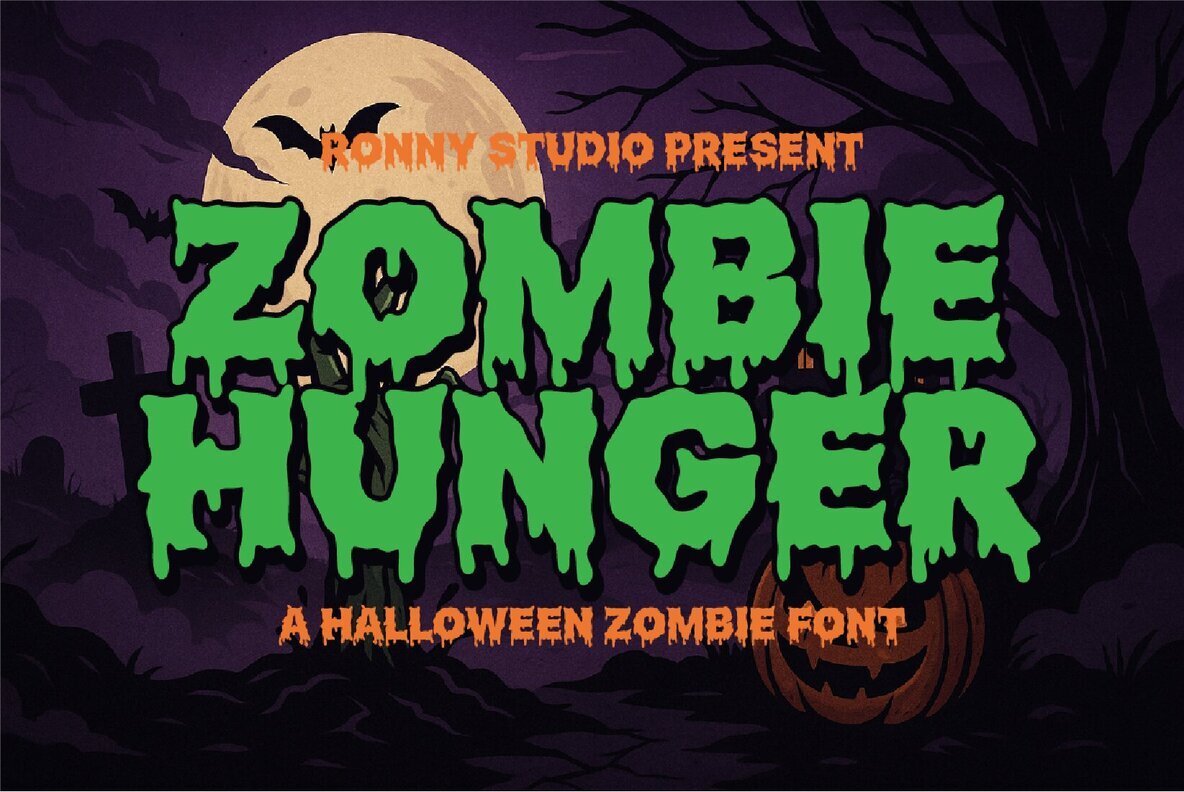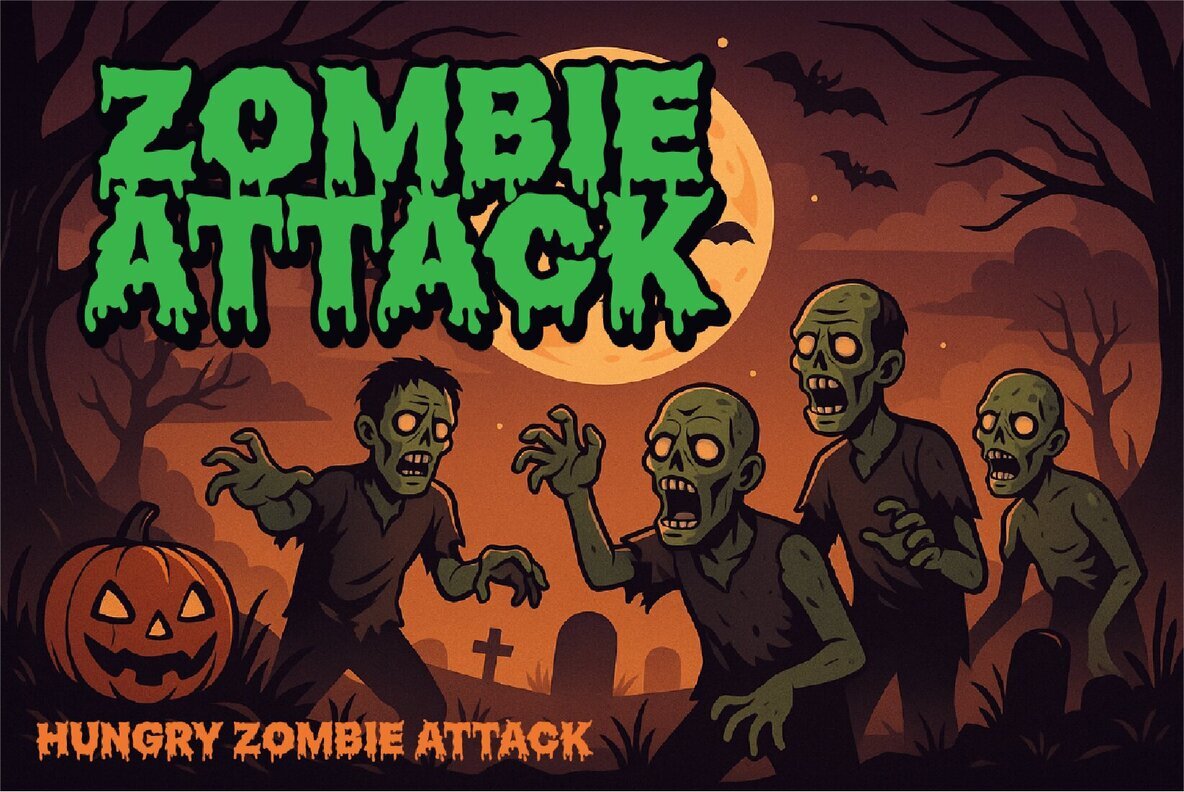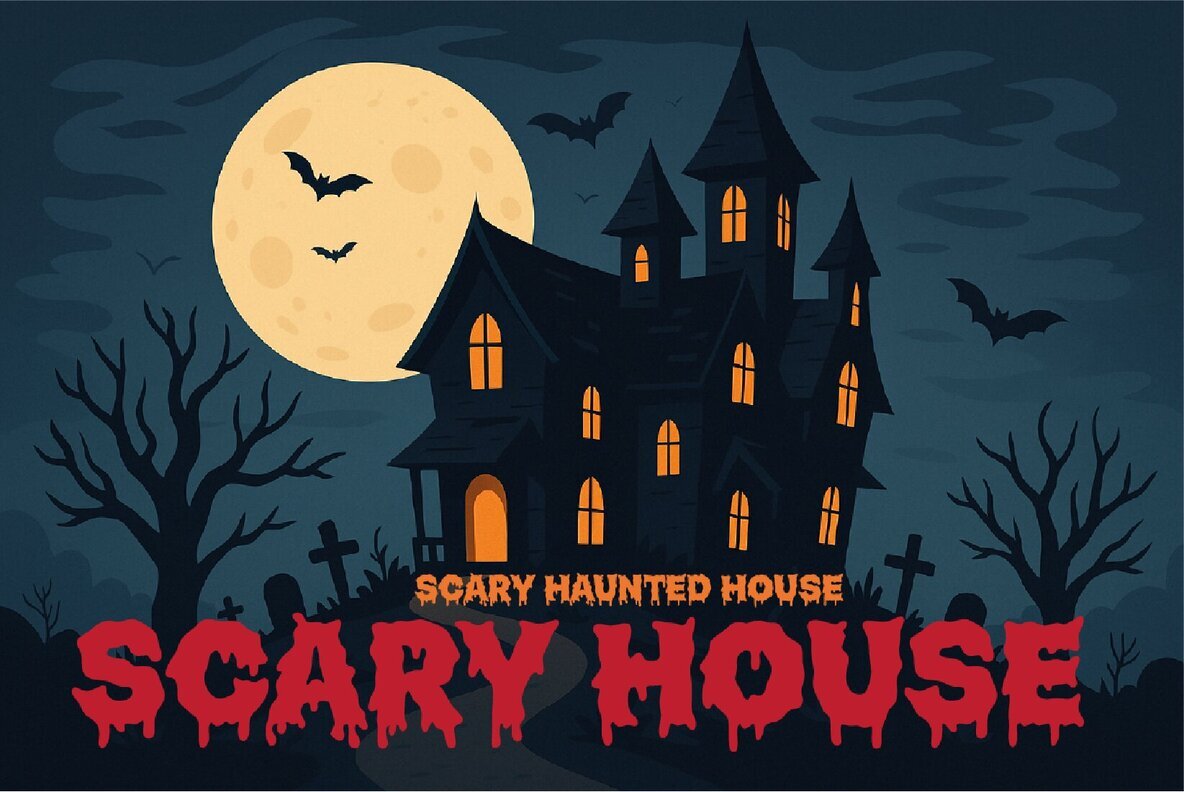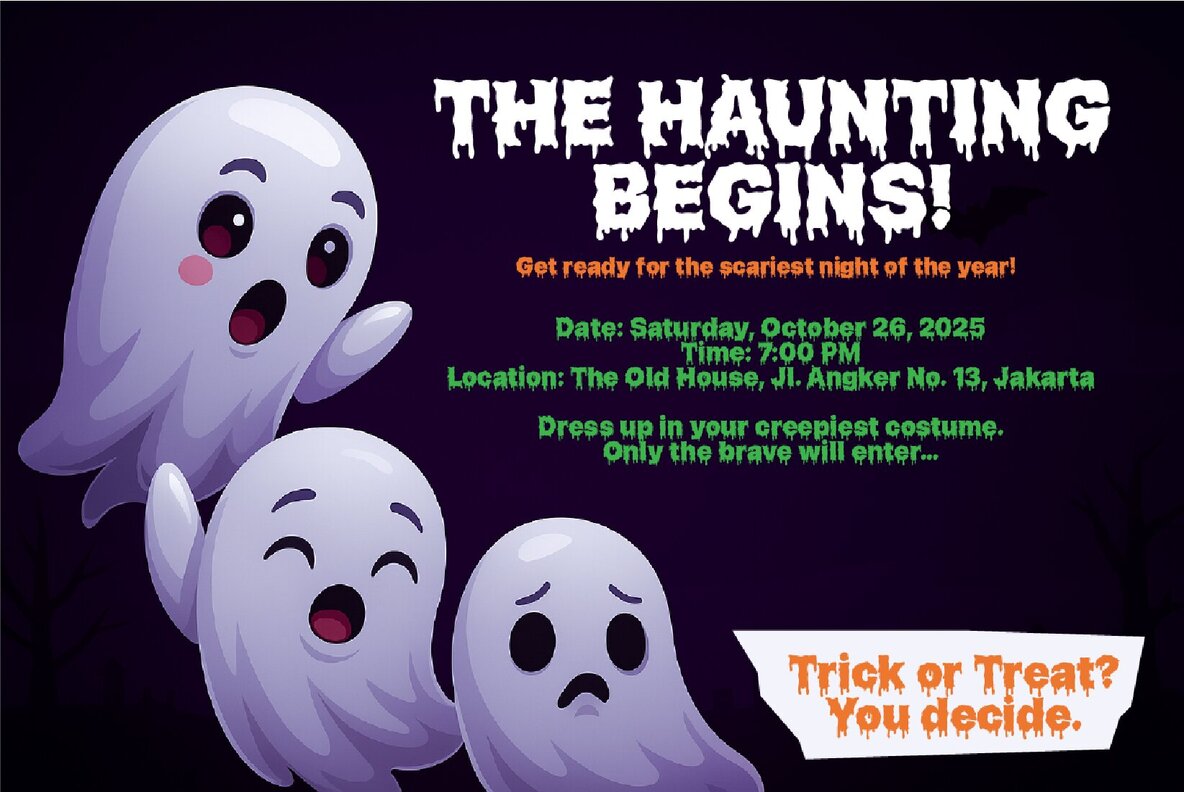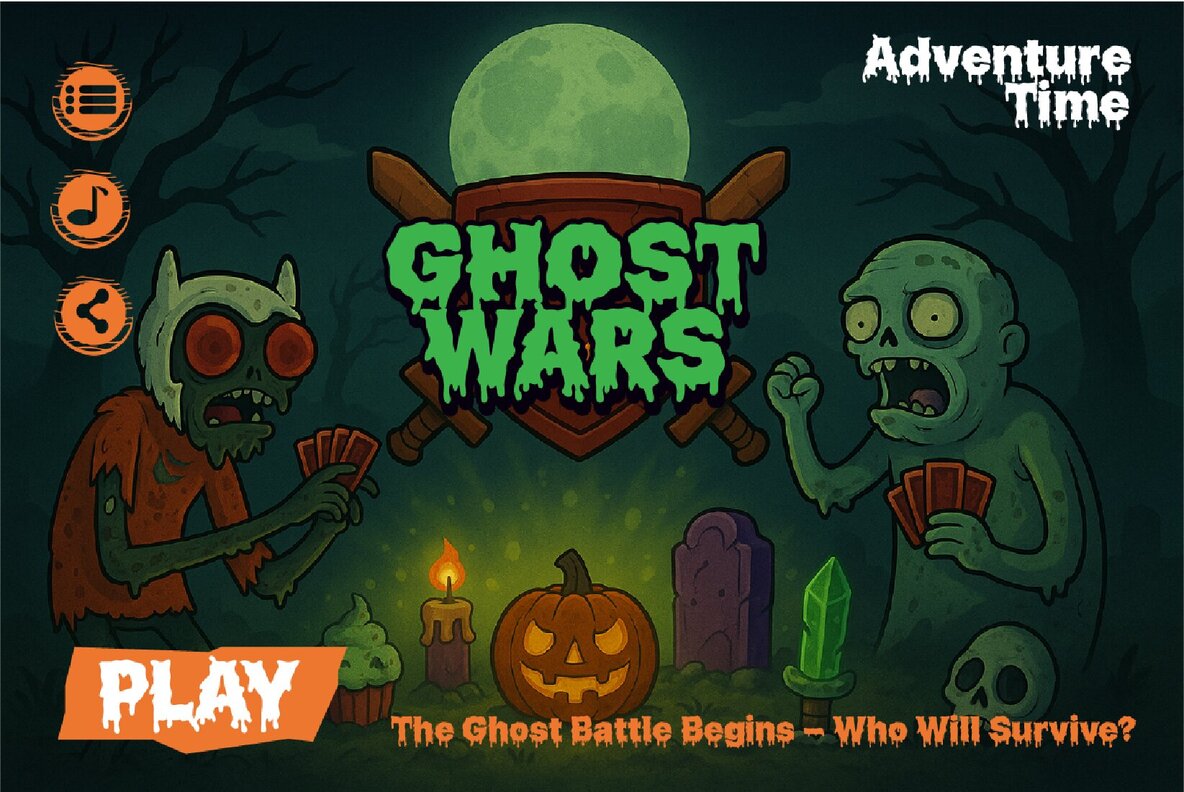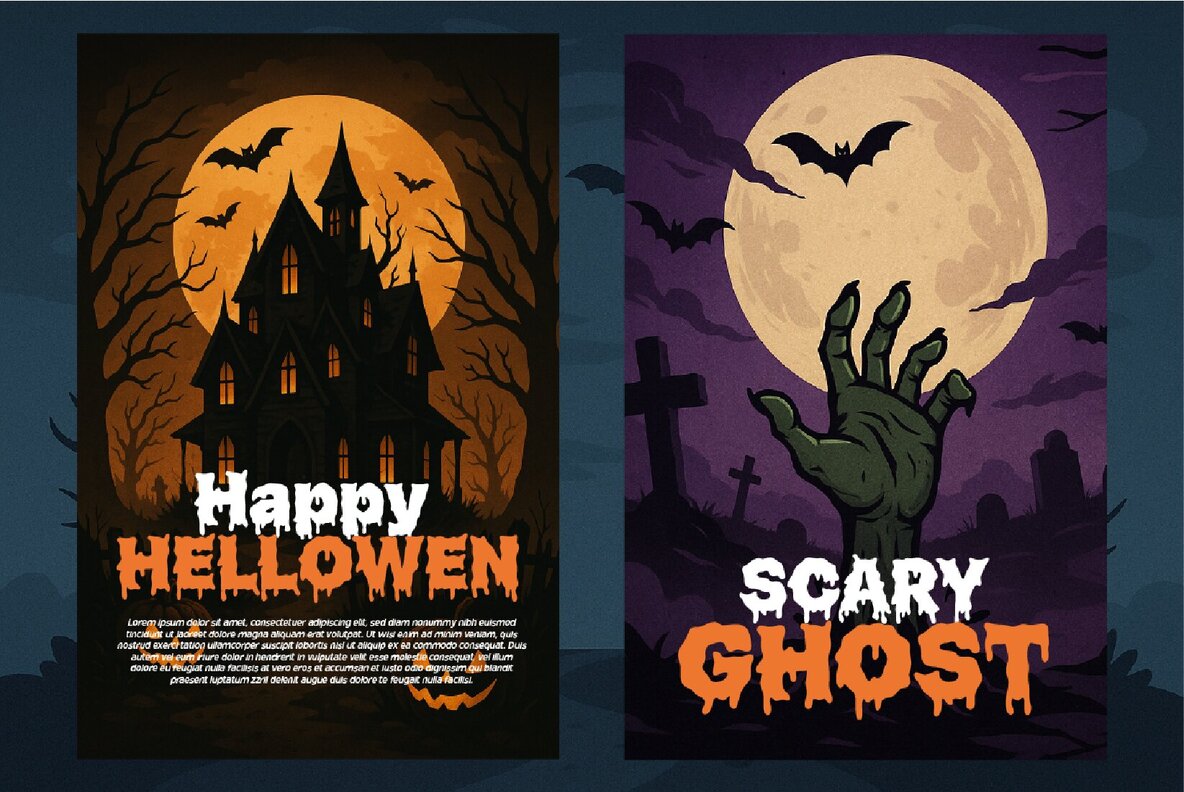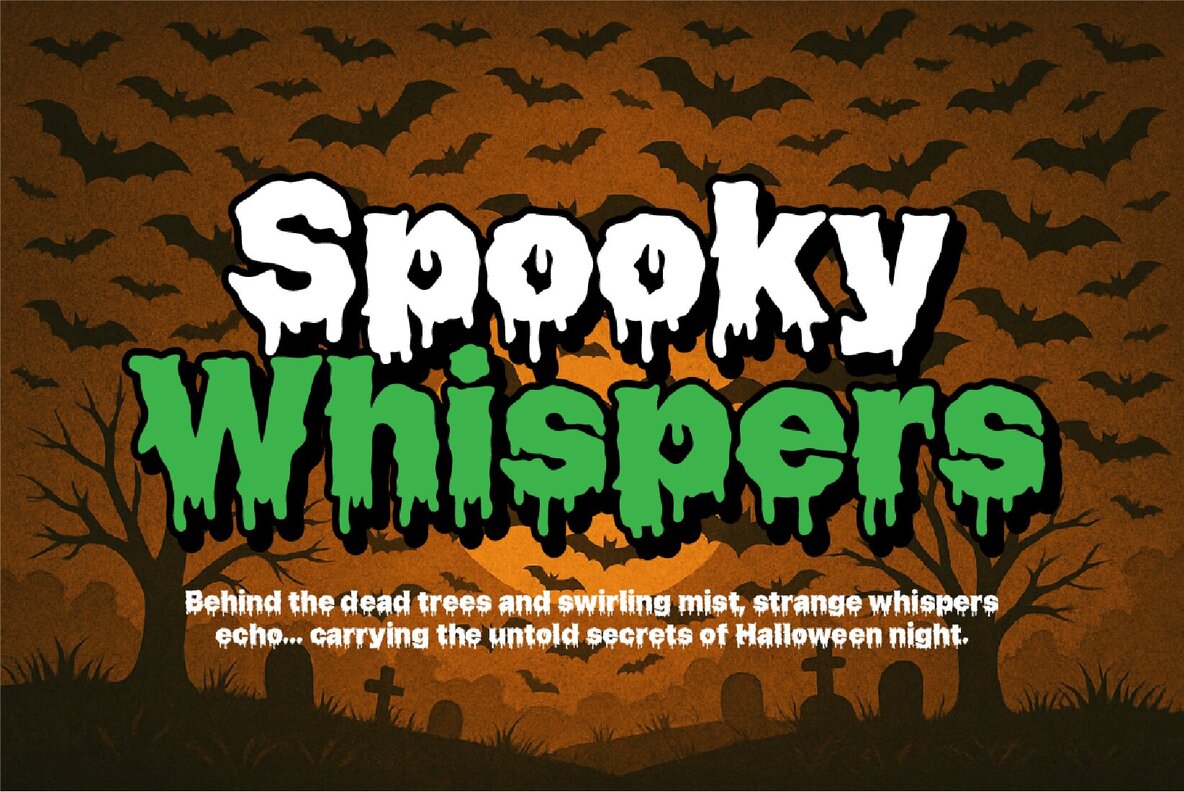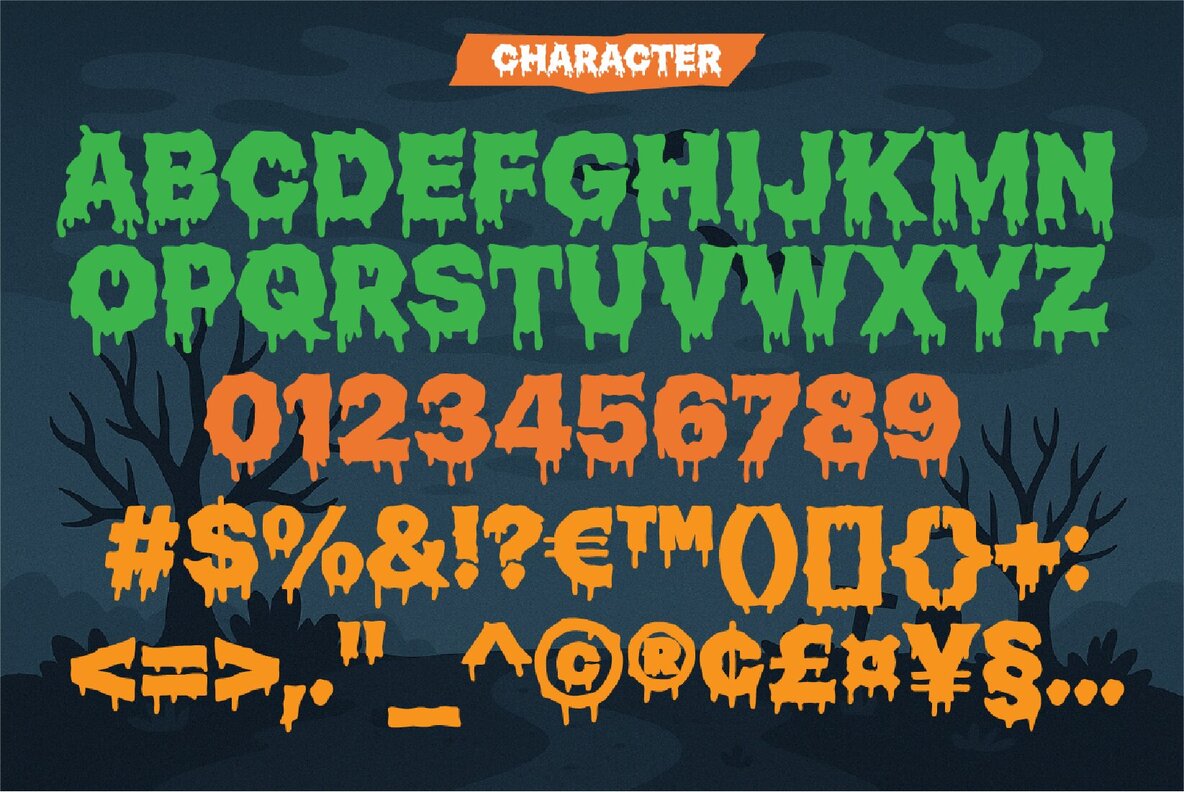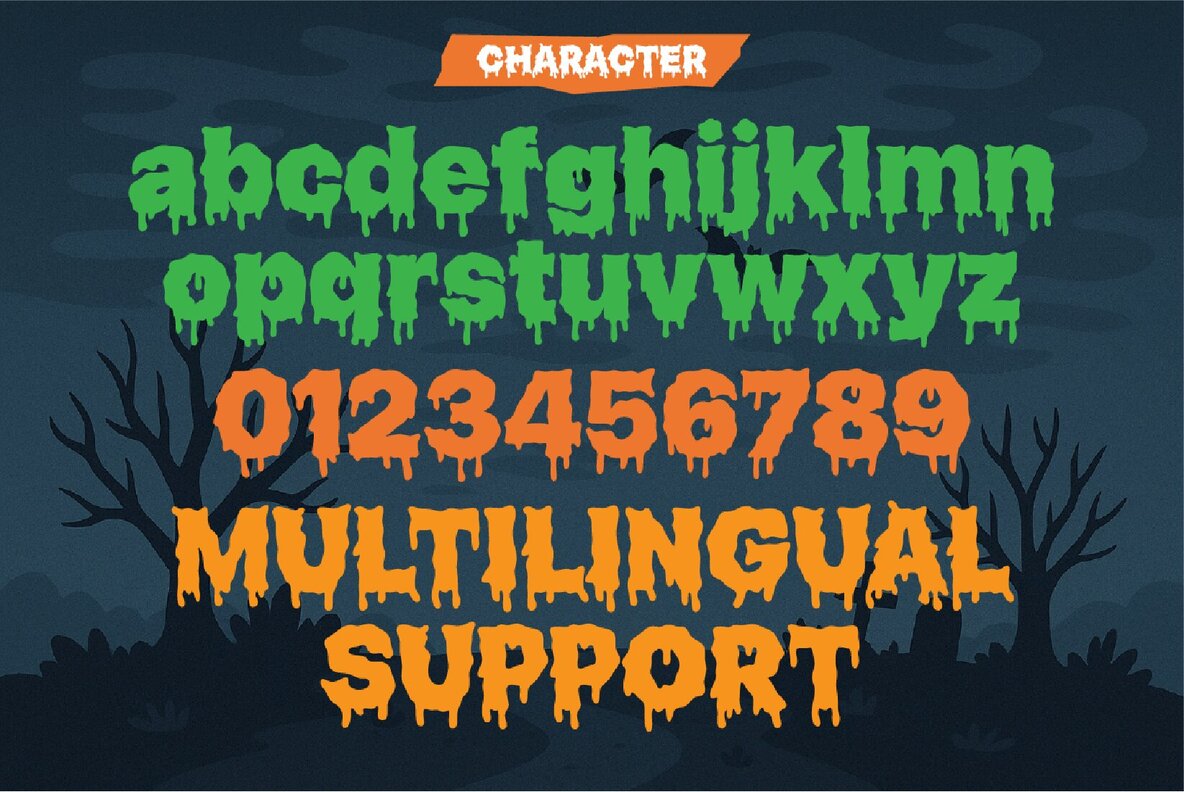
Zombie Hunger Font
Zombie Hunger
Embodying the essence of horror, Zombie Hunger is a display font that exudes an eerie charm perfect for Halloween or any undead-themed projects. This bold, drippy typeface captures a chilling atmosphere, ideal for crafting spine-tingling movie titles or spooky party invitations. Designed for creatives who aim to evoke horror with flair, Zombie Hunger distinguishes itself with a grotesque, oozing aesthetic guaranteed to both terrify and amuse. Infuse your next creation with a touch of the undead.Zombie Hunger: Embrace the Horror with Dripping Display